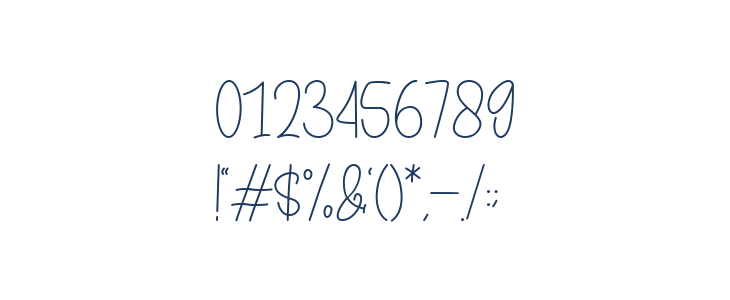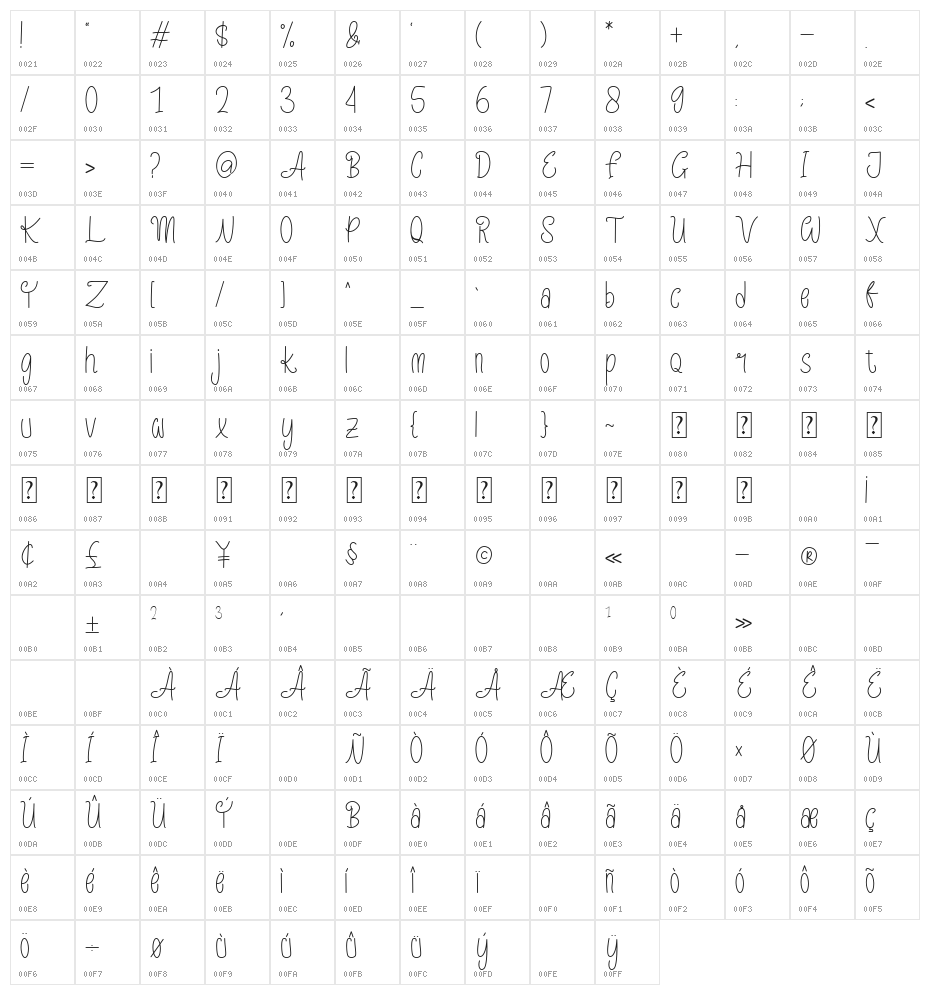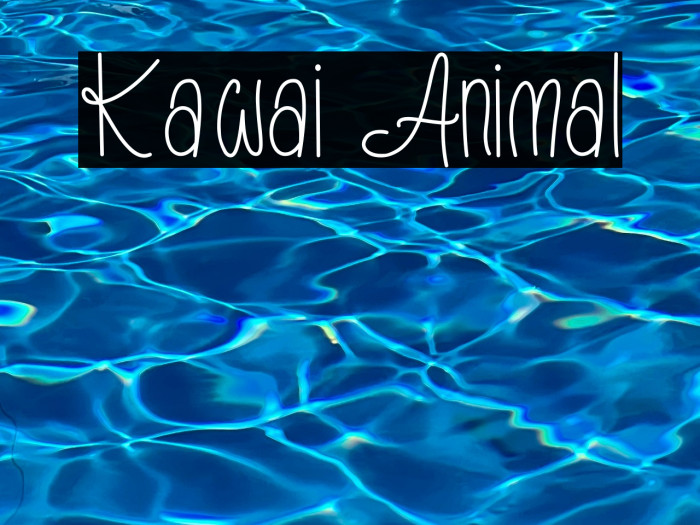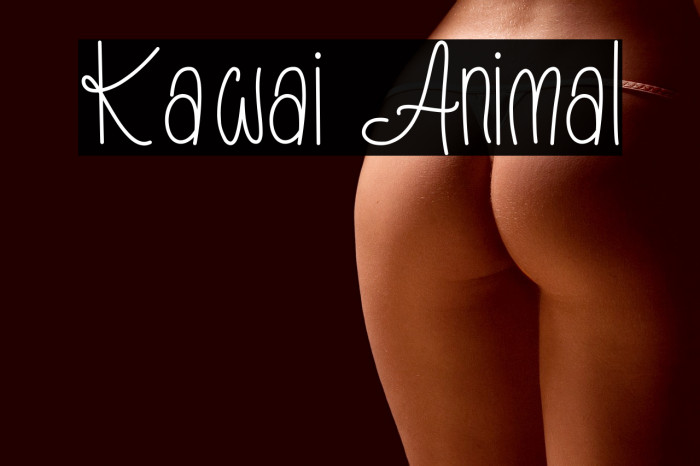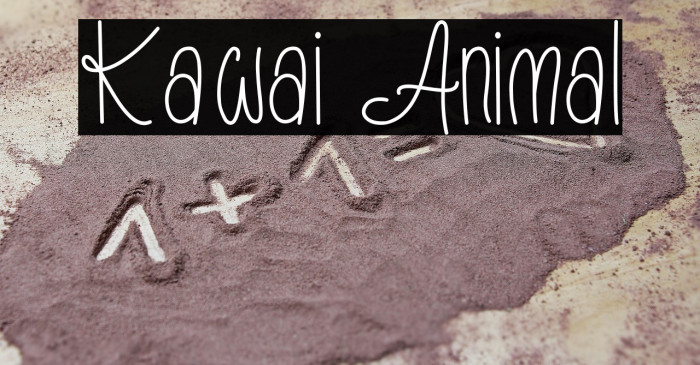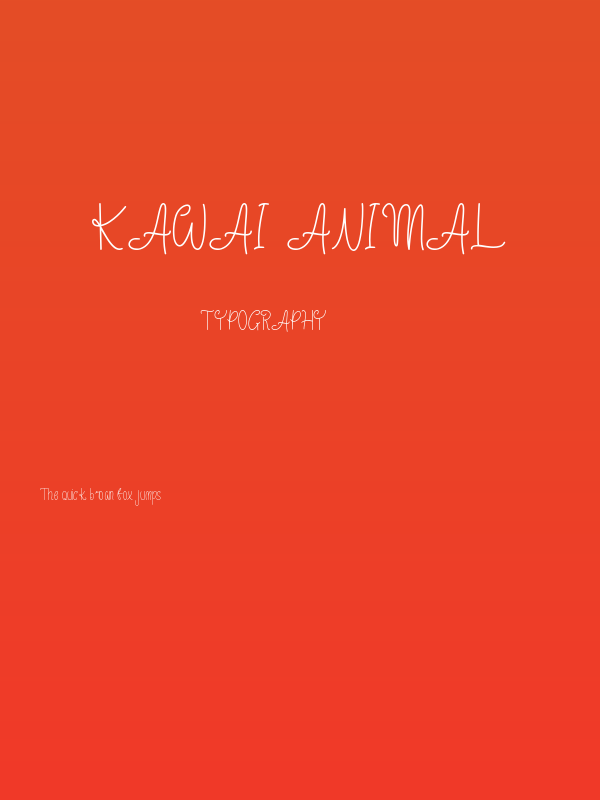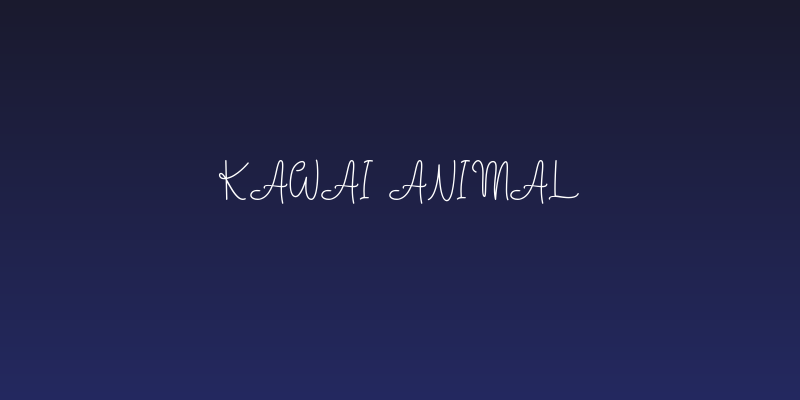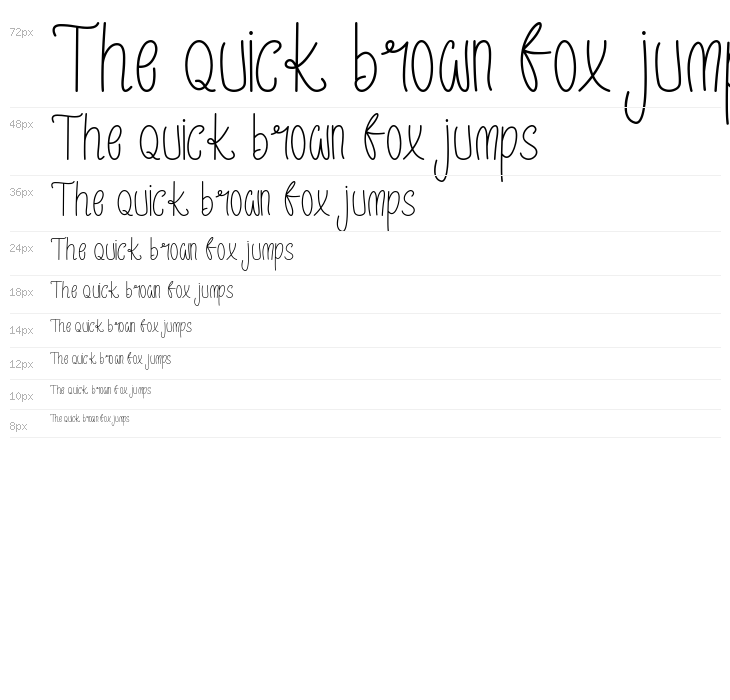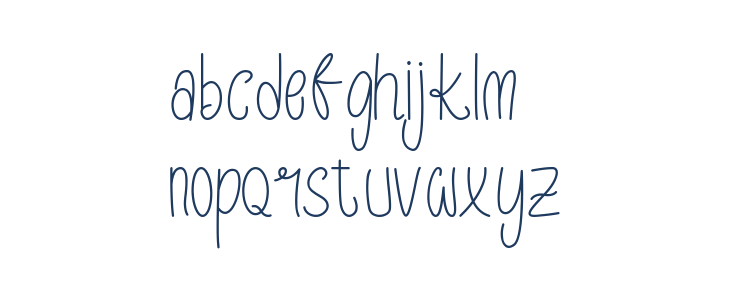
Kawai Animal Font
Kawai Animal Description
This playful and whimsical font features a handwritten style with a touch of elegance. The letters are characterized by their flowing curves and gentle loops, giving them a friendly and approachable appearance. The uppercase letters are tall and slender, while the lowercase letters maintain a consistent height, adding to the font's charm. The numbers and special characters are designed with the same playful aesthetic, making them perfect for adding a touch of fun to any project. The overall design is clean and legible, ensuring readability while maintaining its unique style.
| Proposed Projects | Ideal for children's books, greeting cards, playful branding, and creative invitations. |